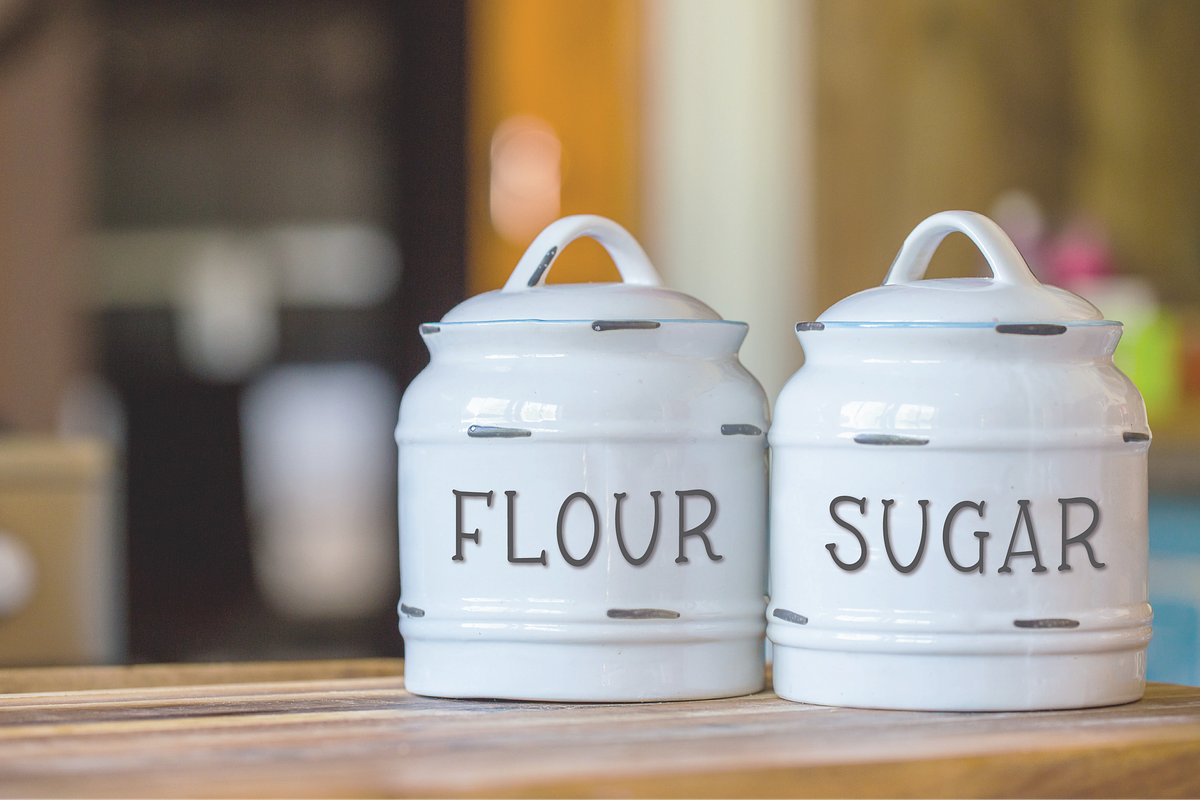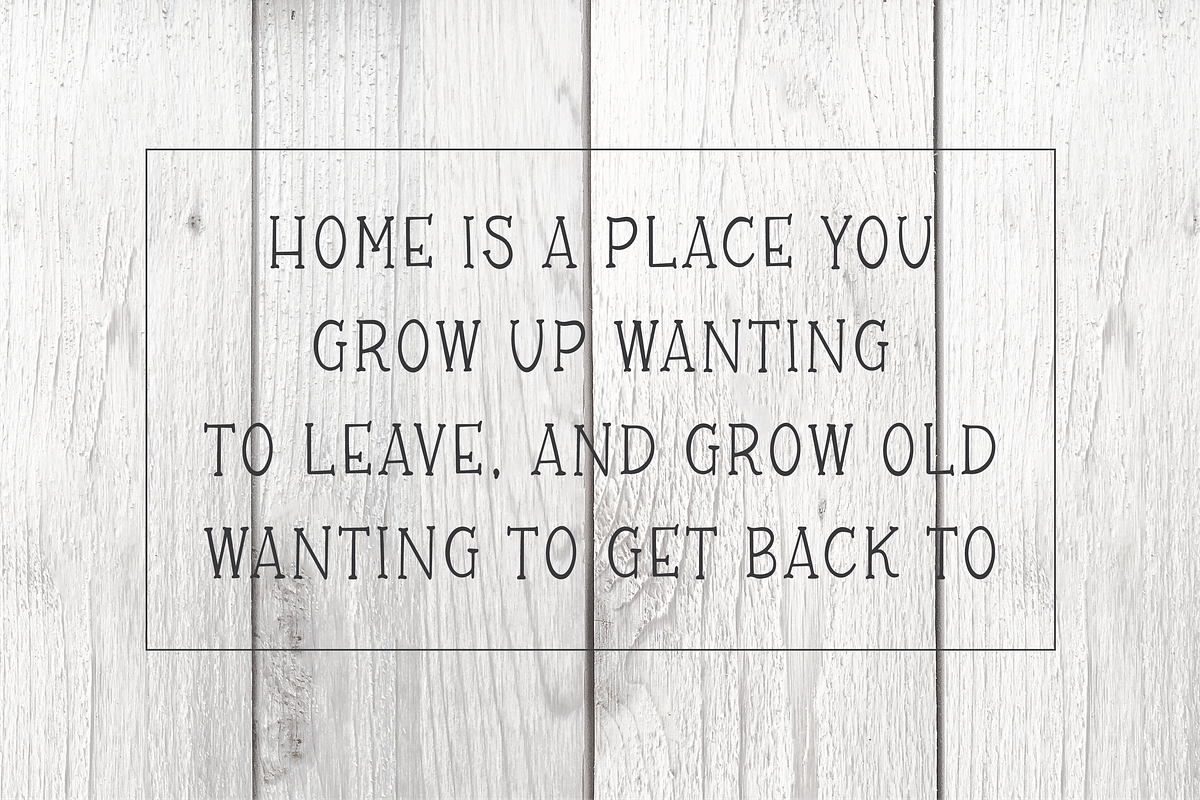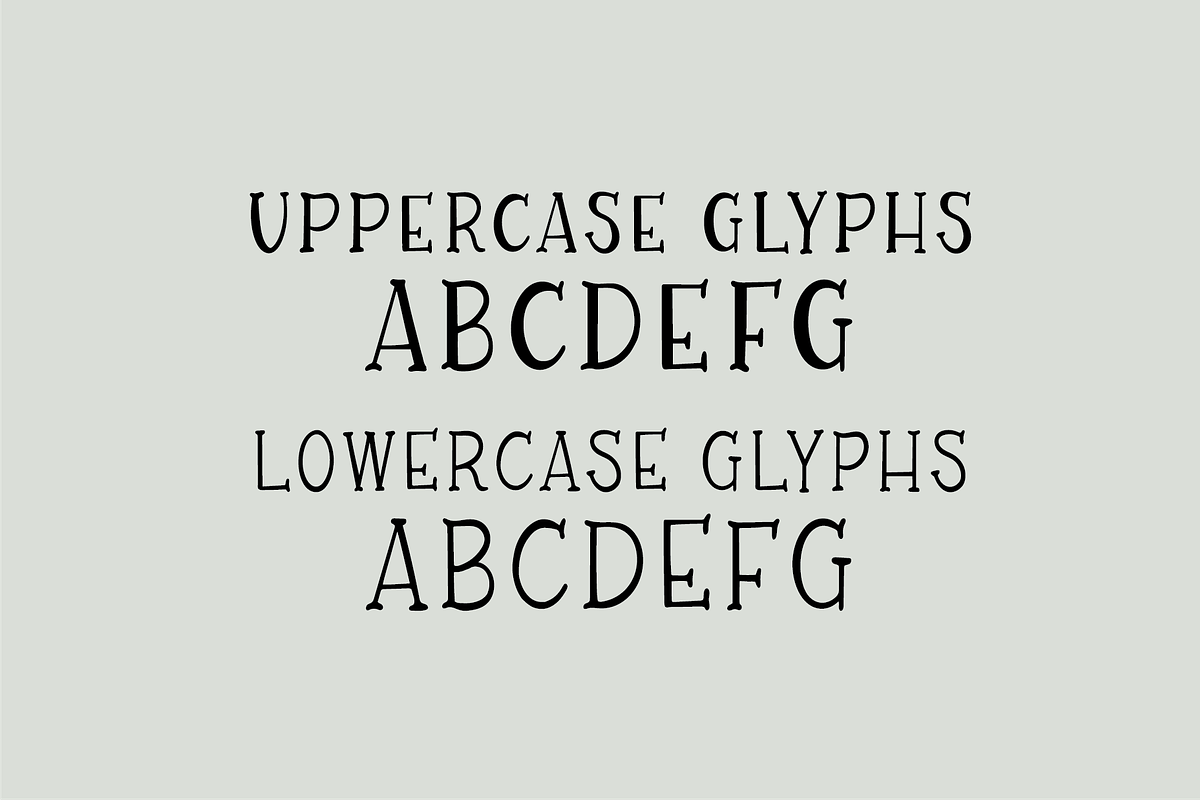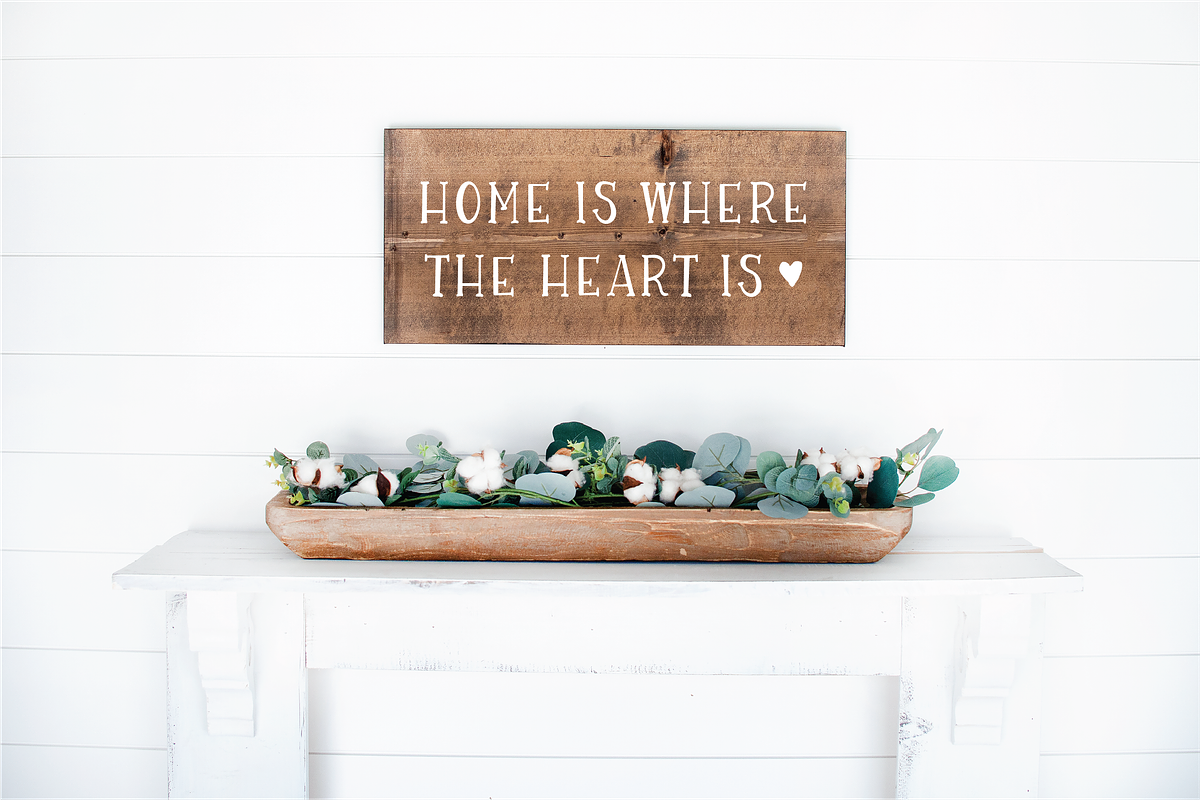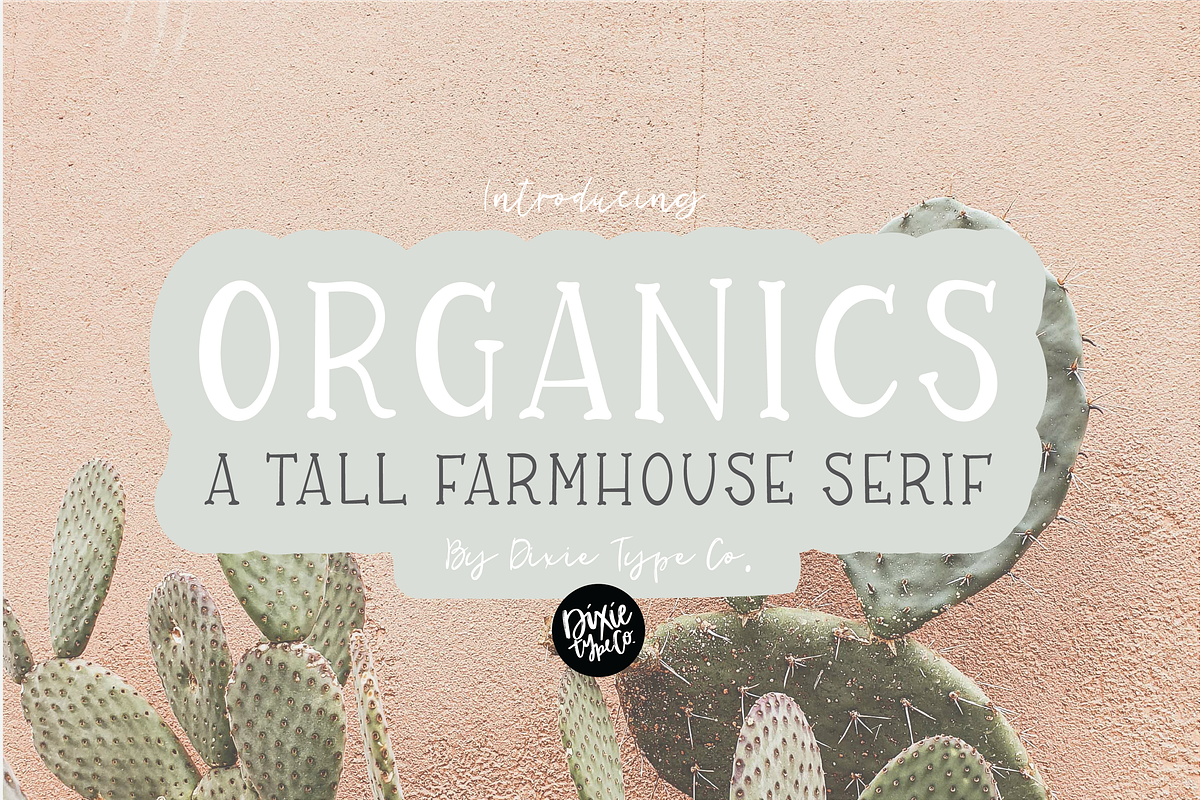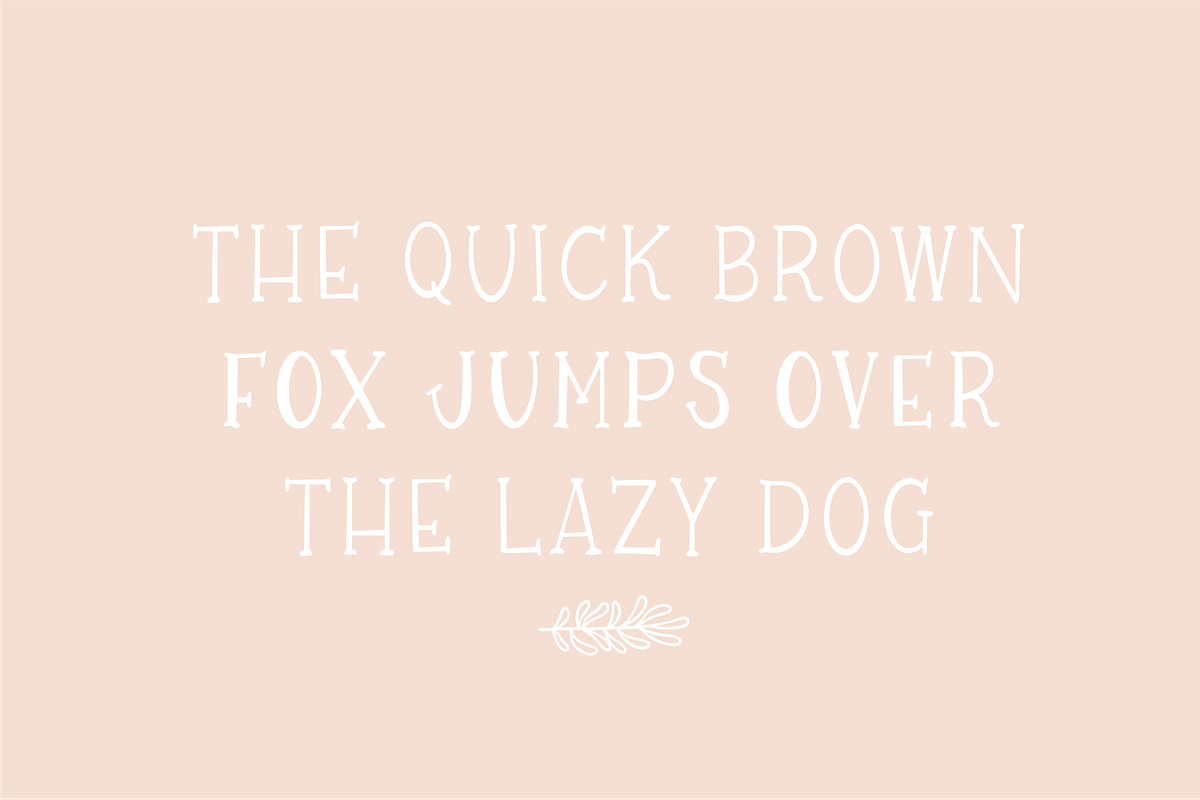
ORGANICS a Farmhouse Serif Font
"Organics" a Tall Hand-lettered farmhouse font. Perfect for signs!
{ A typographic font hand-lettered with love by Dixie Type Co. }
Organics is a serif lettered font that will compliment any script font. This works great in projects that use lots of text. It was made with rustic farmhouse signs in mind. Check out our other farmhouse style fonts that pair perfectly with this one!